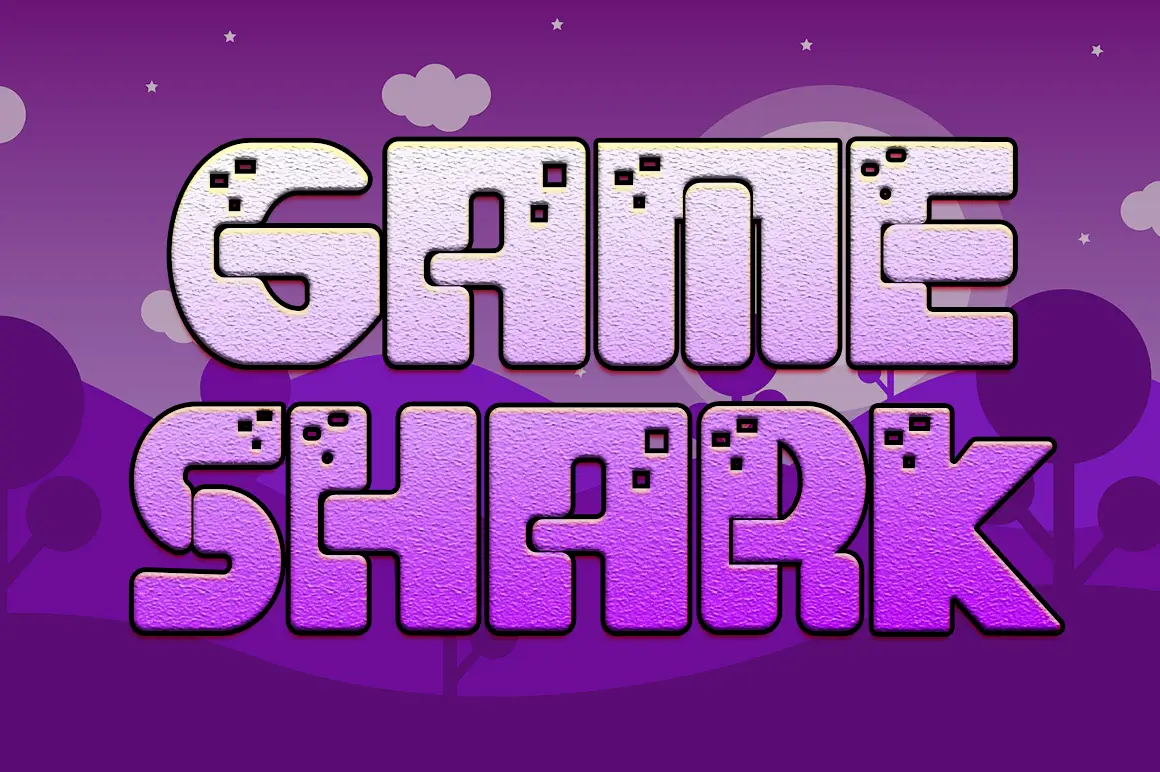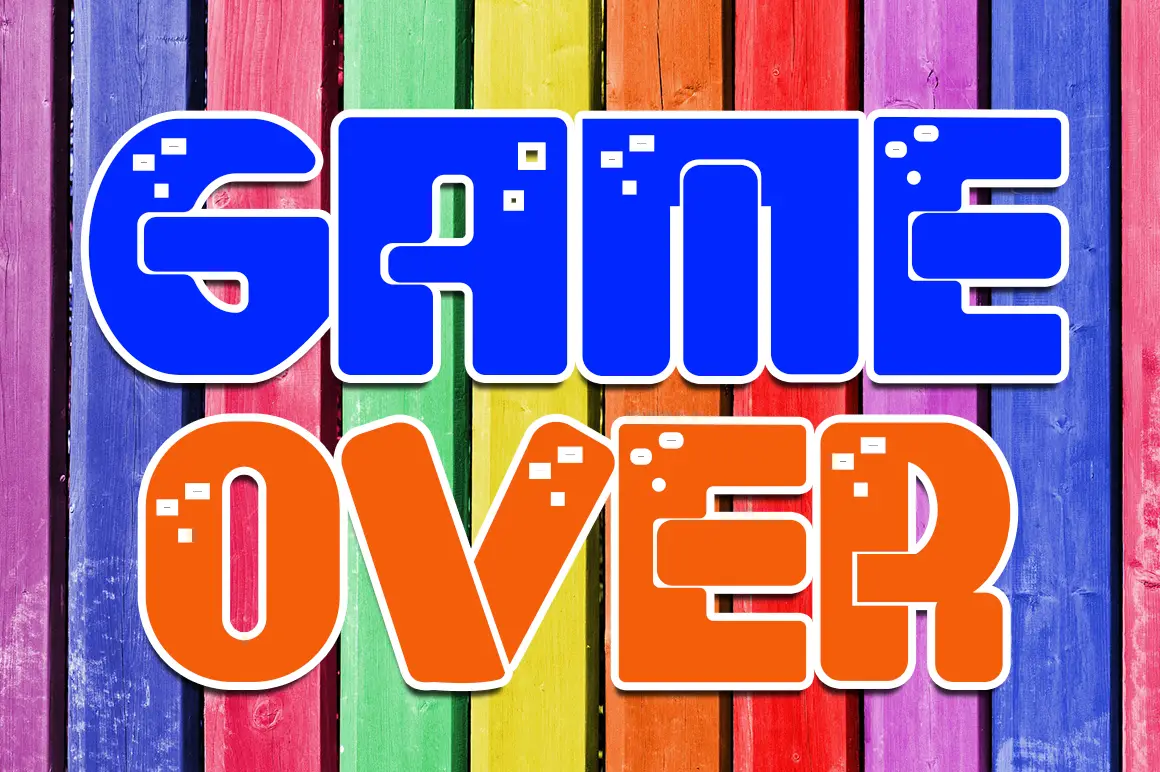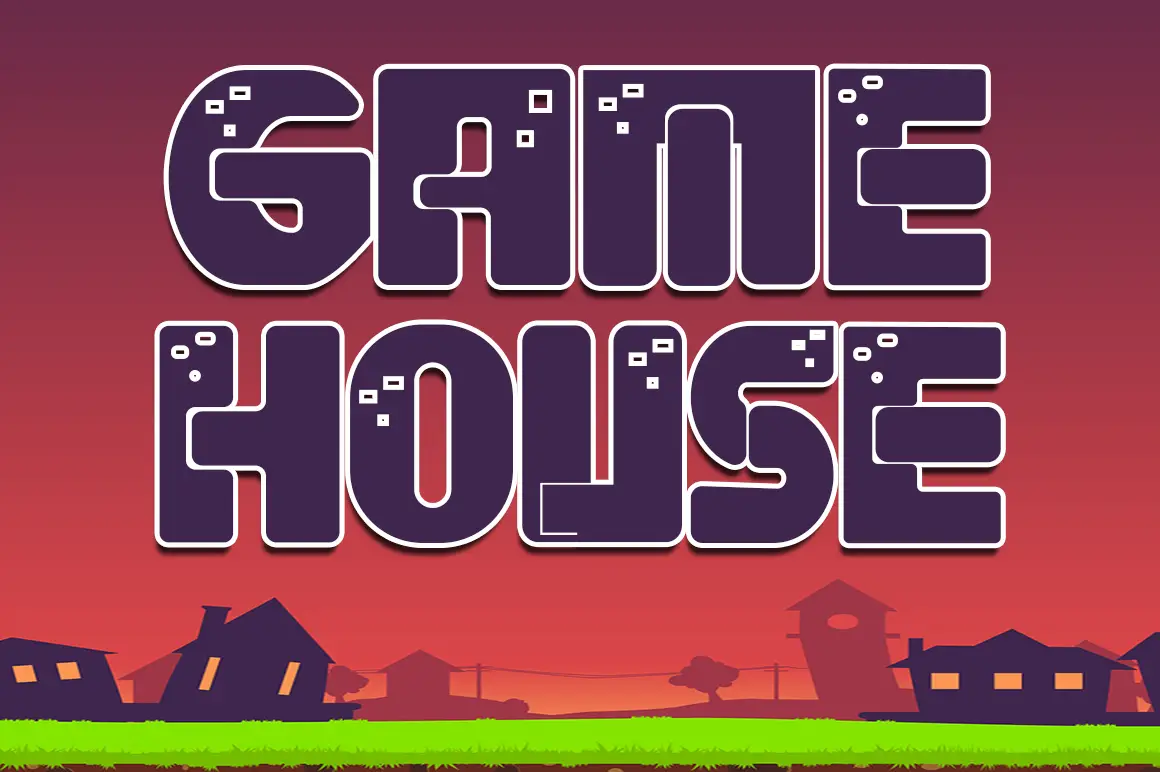
The Game Shark Display Font is a unique typeface designed to capture the essence of gaming culture. With its bold and playful character, this font is perfect for a variety of applications including branding, logos, and promotional materials.
- Stylish display font with a modern aesthetic
- Multiple weights for versatile design options
- Includes uppercase and lowercase letters, numbers, and symbols
- Weight: Regular, Bold
- Ideal for gaming-related projects, merchandise, and digital content
- Use for eye-catching headlines and titles to grab attention
Game Shark Display Font